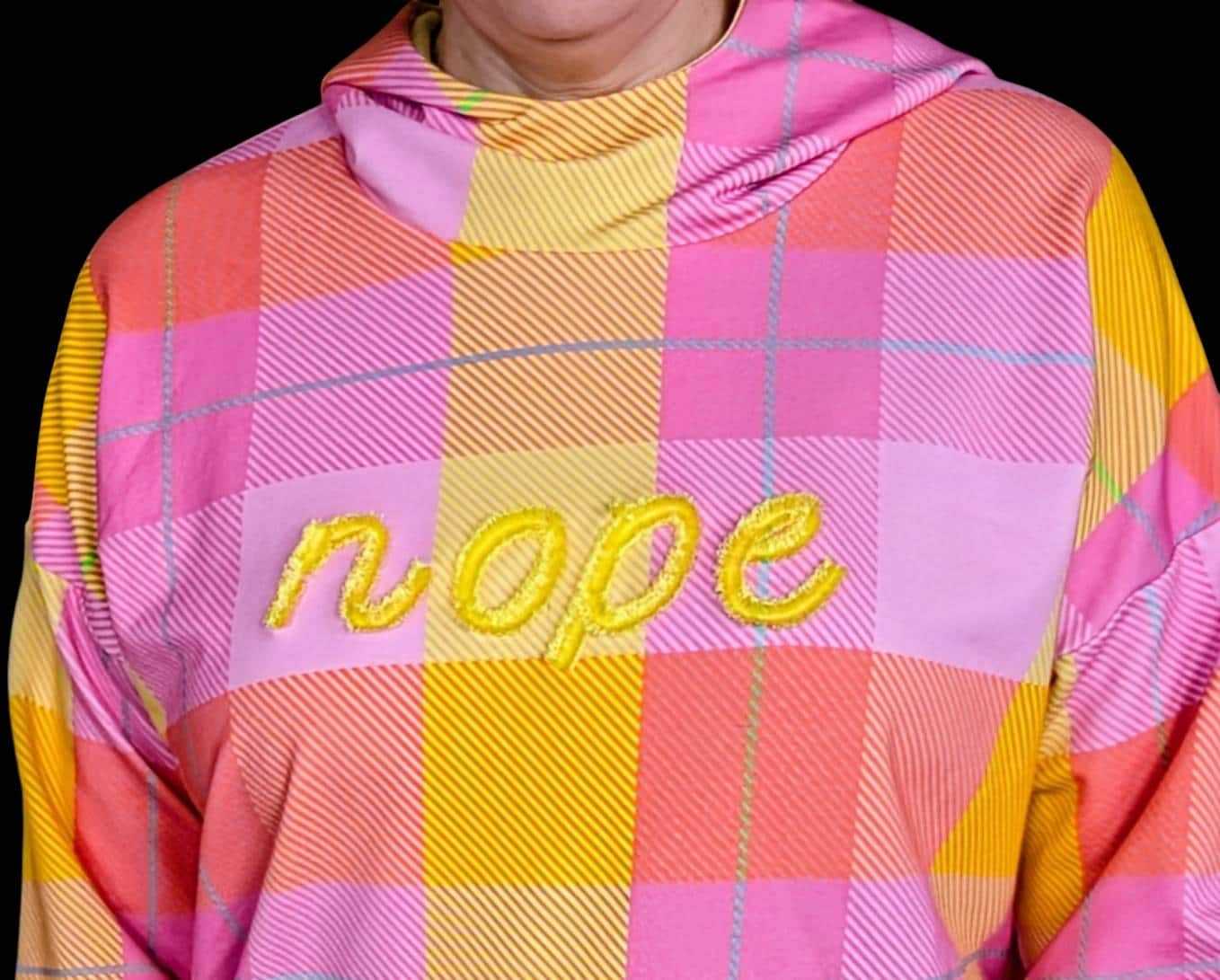
Gingham & Fringed FONT SET of 2 alphabets machine embroidery designs in assorted sizes chenille girly pretty fluffy and buffalo letters, BX included
SET of 2 fonts
* Fringed Font
* Gingham Font
SIZES - Fringed font
Entire alphabet A-Z uppercase and lowercase
4.7 inches
You may fringe all letters. Please view the last image on how-to.
SIZES - Gingham monogram uppercase letters in height
4.4 inches
5.6 inches